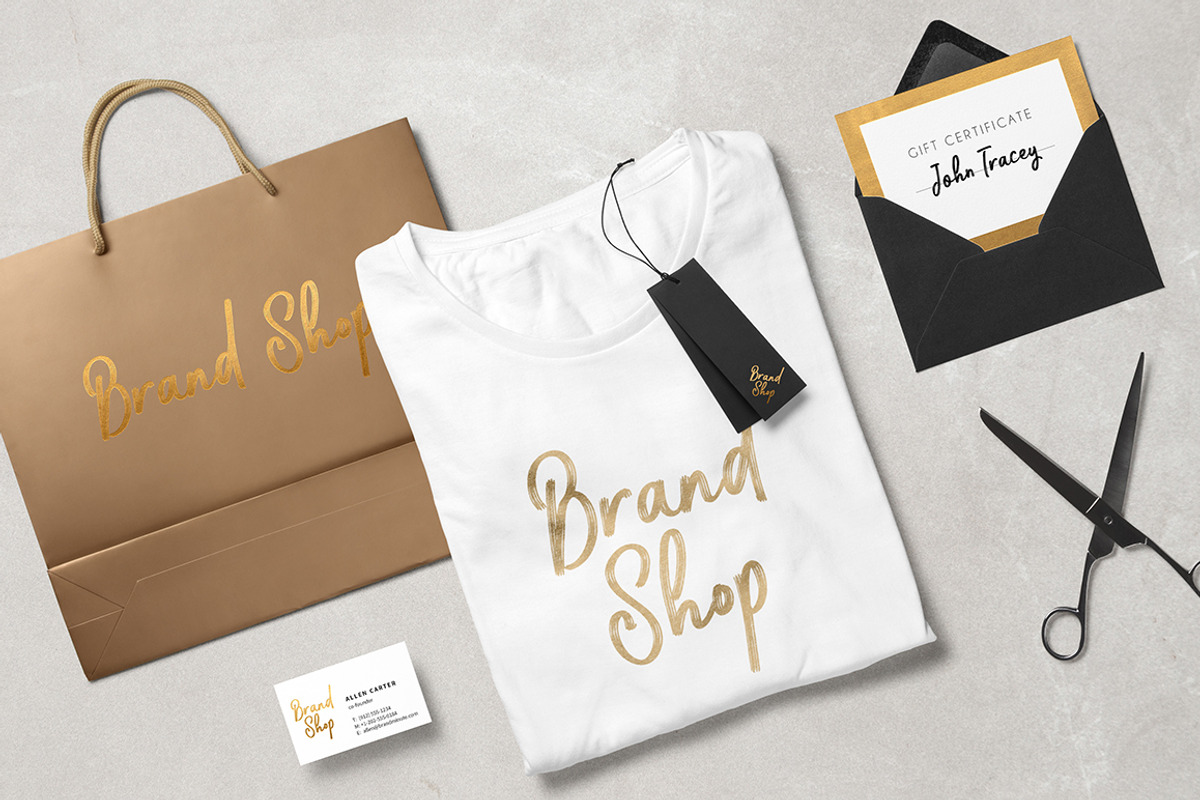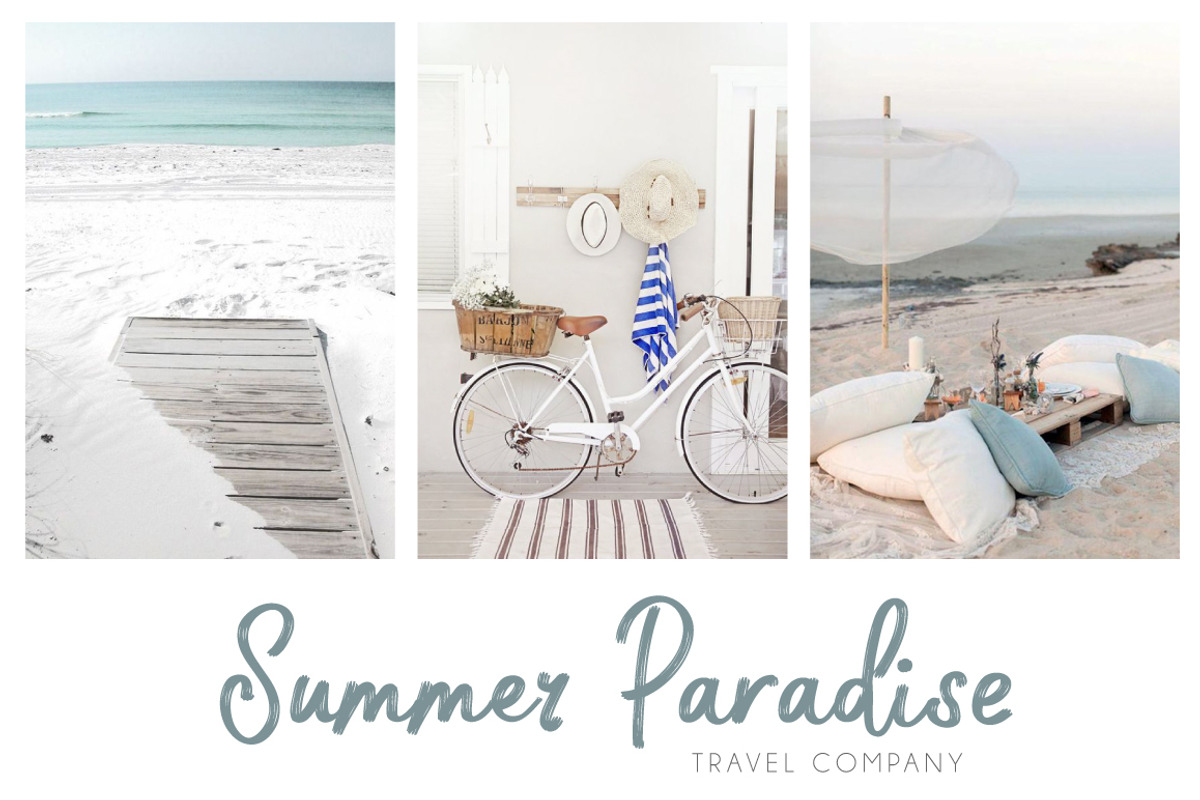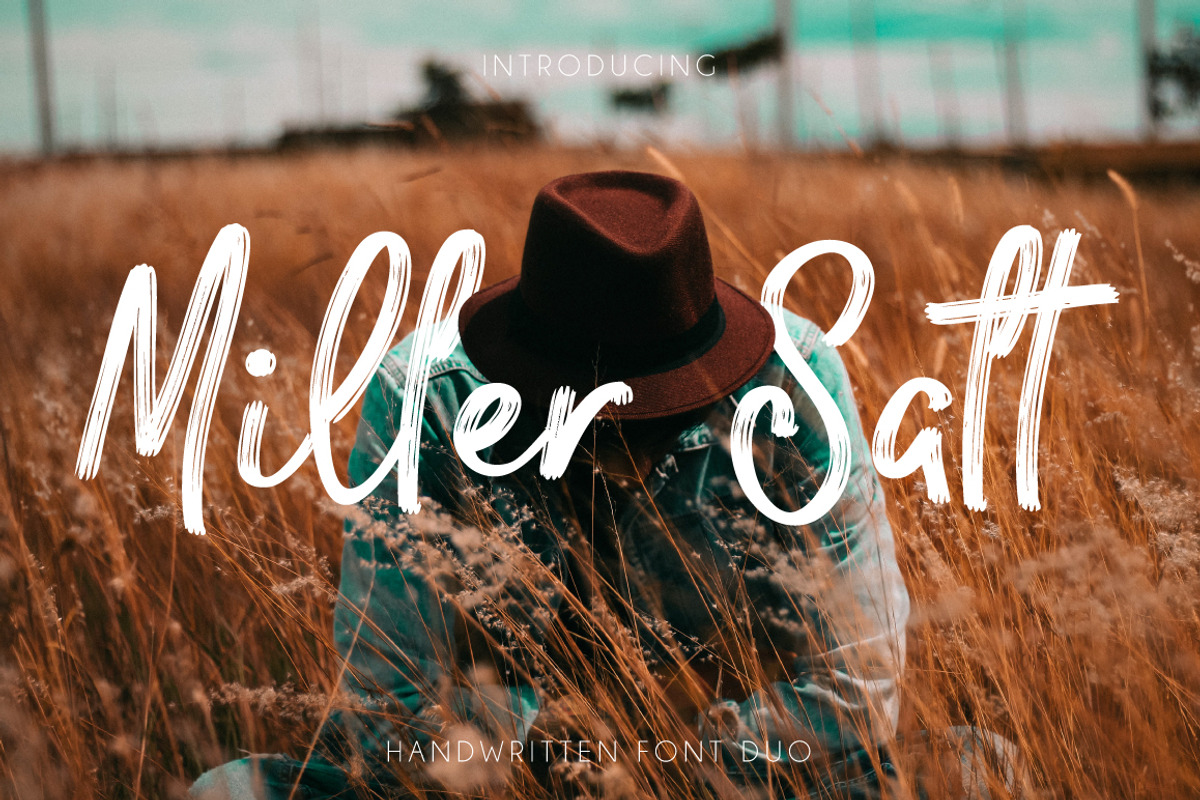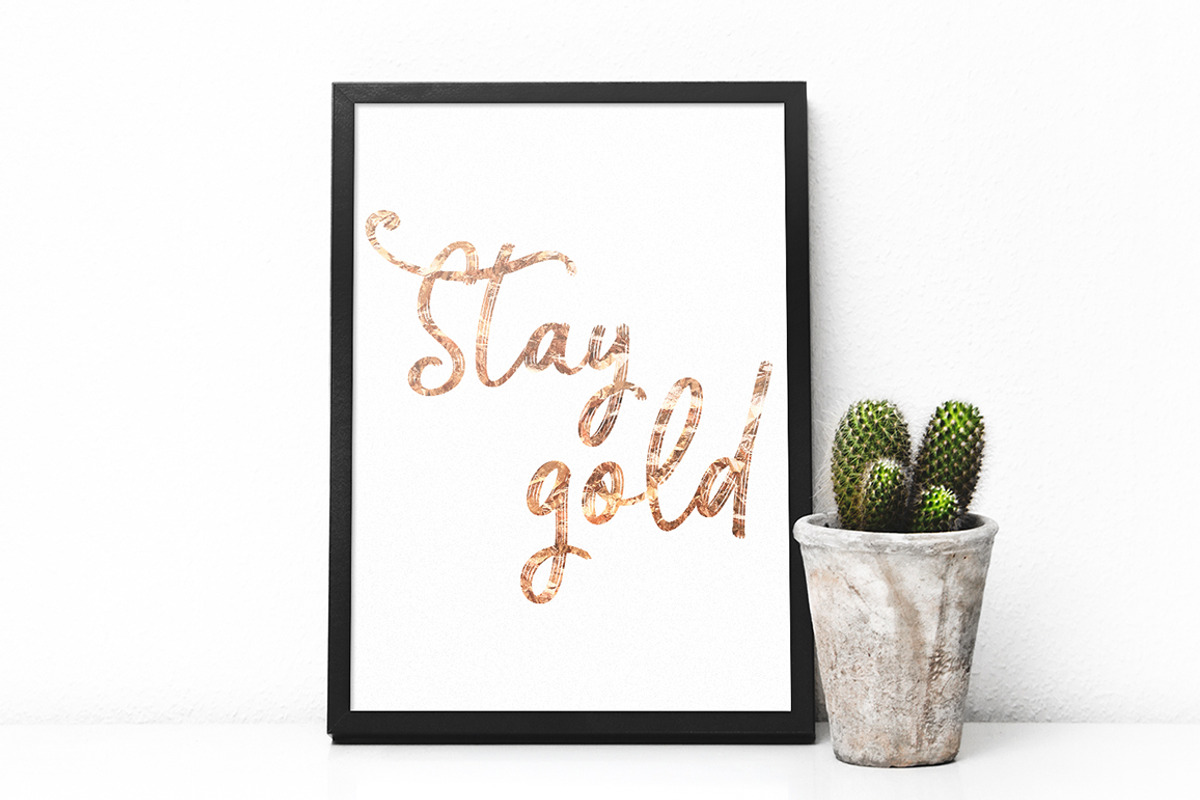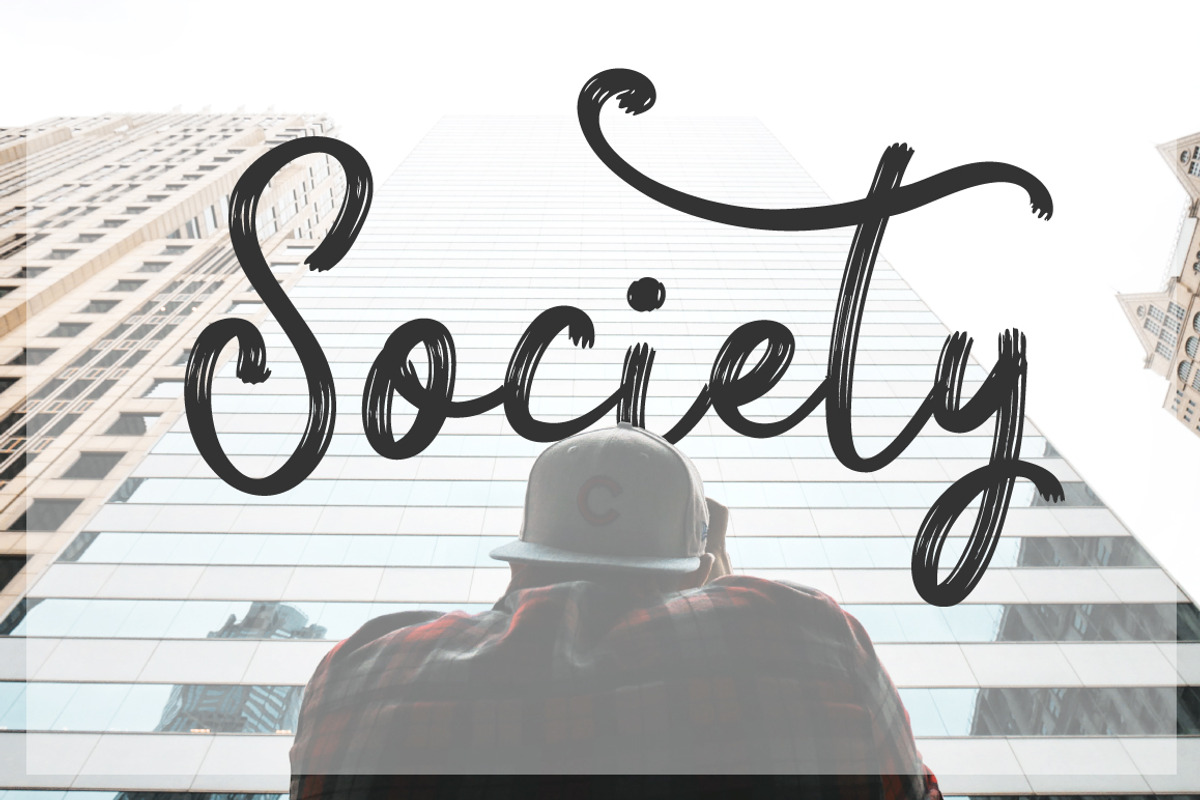
Miller Salt Font DUO
Miller Salt Font DUO by Creamy Script is a font selected for branding, posters, packaging, typography.
- Miller Regular
- Salt Regular
Why Miller Salt Font DUO is worth a look
Miller Salt Font DUO by Creamy Script fits naturally into Branding, posters, packaging, typography.